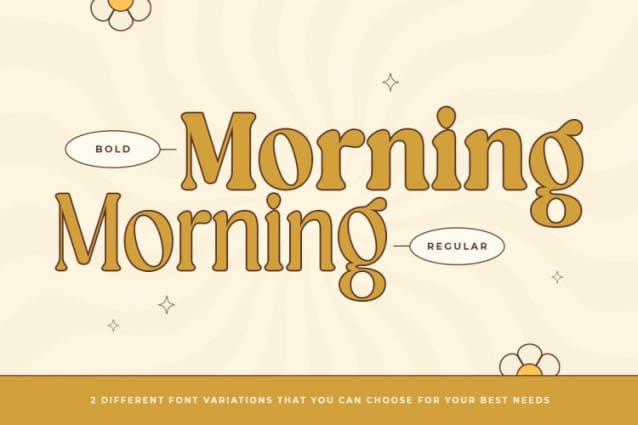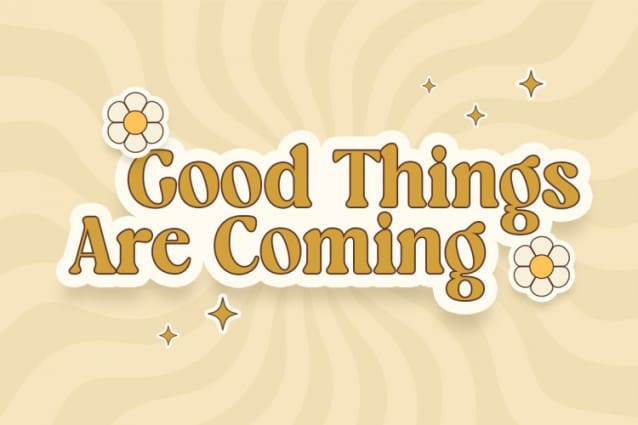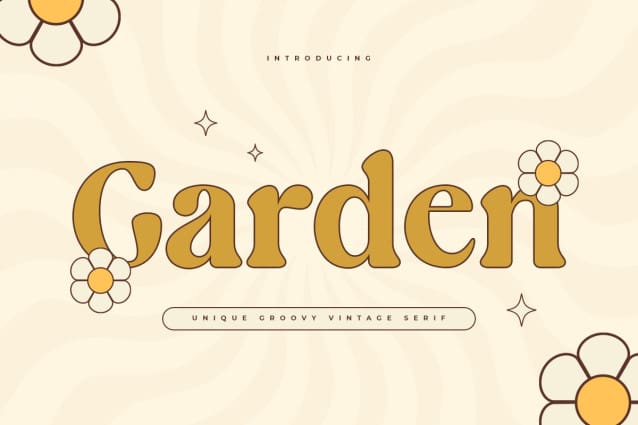
Garden Font
Garden Font is an Unique Groovy Vintage Serif Font. A New Groovy Retro font that we created special for Unique branding needs, with extra alternates in unique style that ready to add value of your brand. It’s so nice to leverage designer or product owner that need solutions to make their design look more unique and vintage.